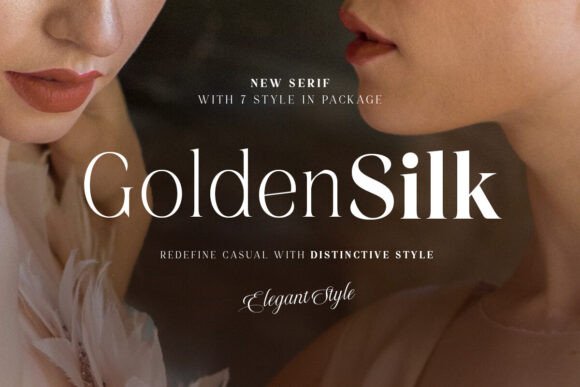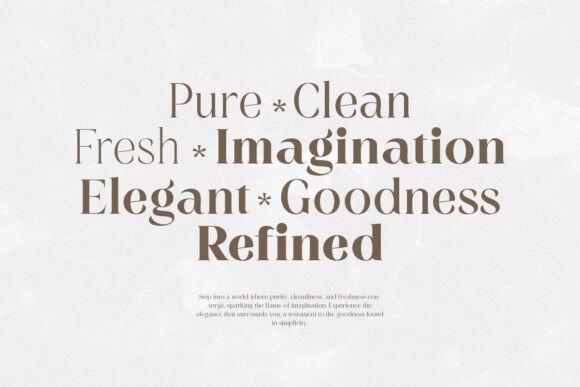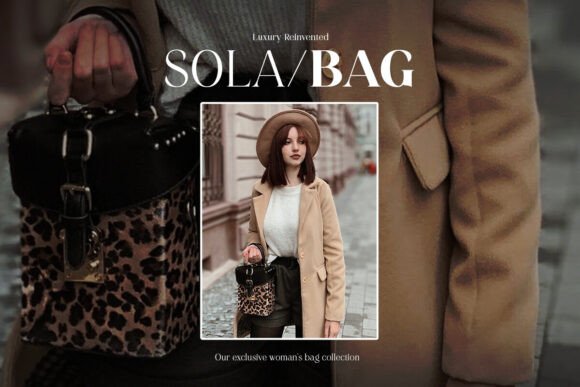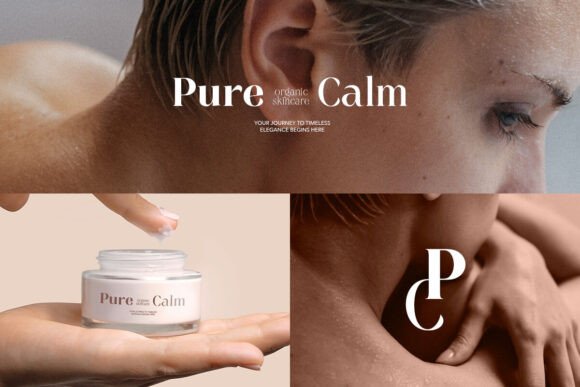
Golden Silk Font
About the Golden Silk Font
Discover the charm of Golden Silk Font. This font is a perfect blend of modern aesthetics and classic appeal. Golden Silk is an elegant and classic serif font family with stylish and modern looks. With 7 weights including light, regular, medium, semi-bold, bold, extra bold, and black that you can choose for your design. You can use the light and regular for clean and minimalist looks or bold and extra bold for strong impressions.
Golden Silk excels in headline applications, branding projects requiring a touch of sophistication, and elegant packaging designs. Its refined serifs lend themselves well to short, impactful text, creating a sense of timeless quality. Avoid using it for lengthy body copy or UI elements; its elegance might become overwhelming and hinder readability in smaller sizes or extended blocks of text.
The font’s core personality is elegant and refined, yet versatile enough for both classic and modern applications. It projects confidence and understated luxury.
For effective pairings, consider pairing Golden Silk with a clean sans-serif like Open Sans for body text or a geometric sans-serif like Futura for a modern contrast. A playful script font could add a touch of personality to logos or short taglines, while a neutral serif like Garamond could create a cohesive and traditional feel in more formal applications.
Golden Silk Font Example